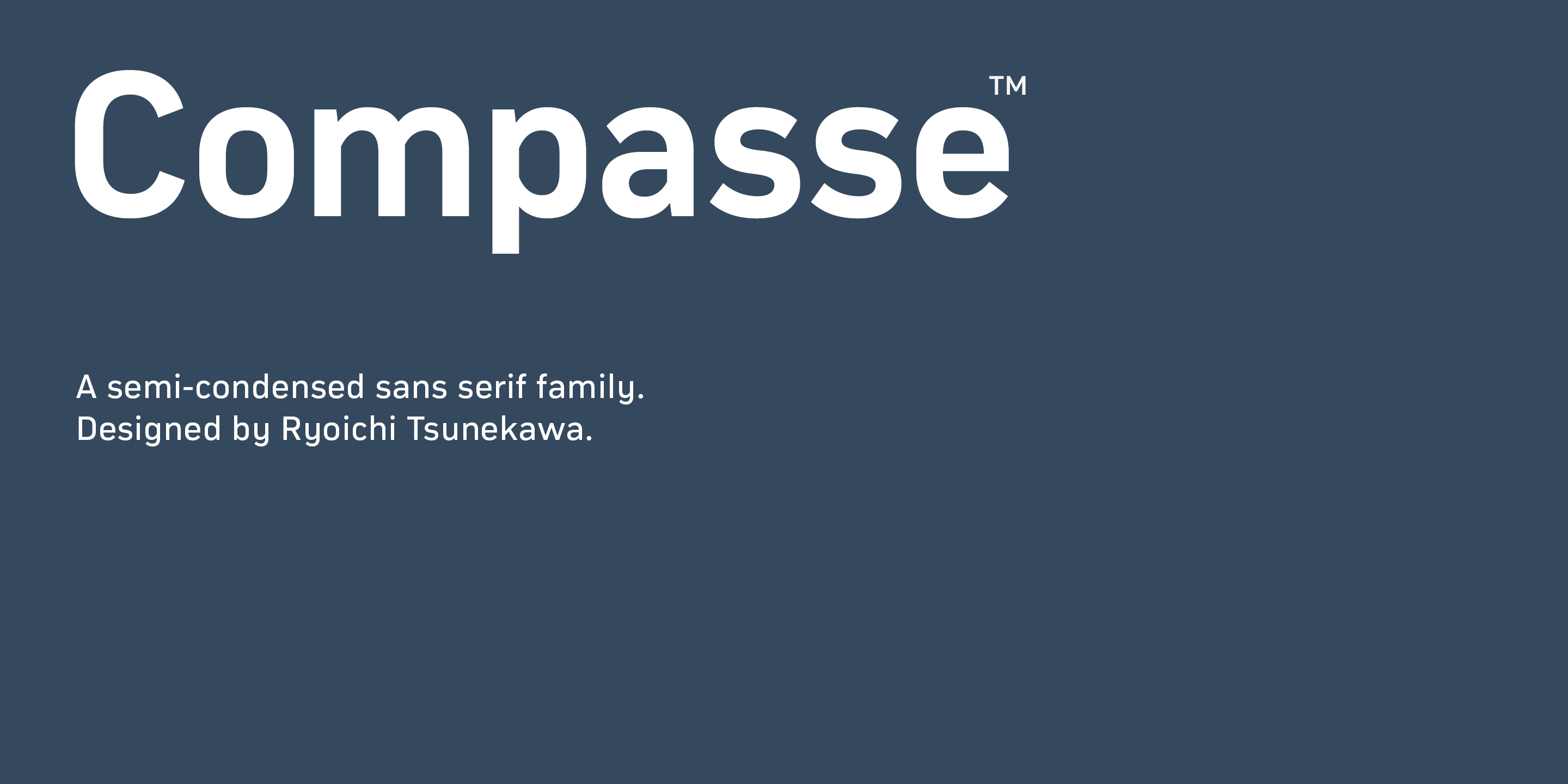
Navigate your designs with precision using Compasse Font Free Download – a sleek, geometric sans-serif inspired by nautical instruments and modernist design principles. This versatile typeface combines technical clarity with subtle warmth, perfect for projects demanding both functionality and contemporary elegance.
Why Compasse Font Stands Out
Clean, instrument-inspired letterforms
Perfect balance of technicality and approachability
Multiple weights for dynamic hierarchy
Excellent readability in all environments
Extended numerals and punctuation
OpenType features including alternates
Optimized for digital and print displays
Precision Applications:
Nautical/marine branding
Tech startup interfaces
Scientific publications
Modern wayfinding systems
Industrial product design
Design Tip: Pair with subtle grid layouts and oceanic blue accents for cohesive nautical aesthetic!